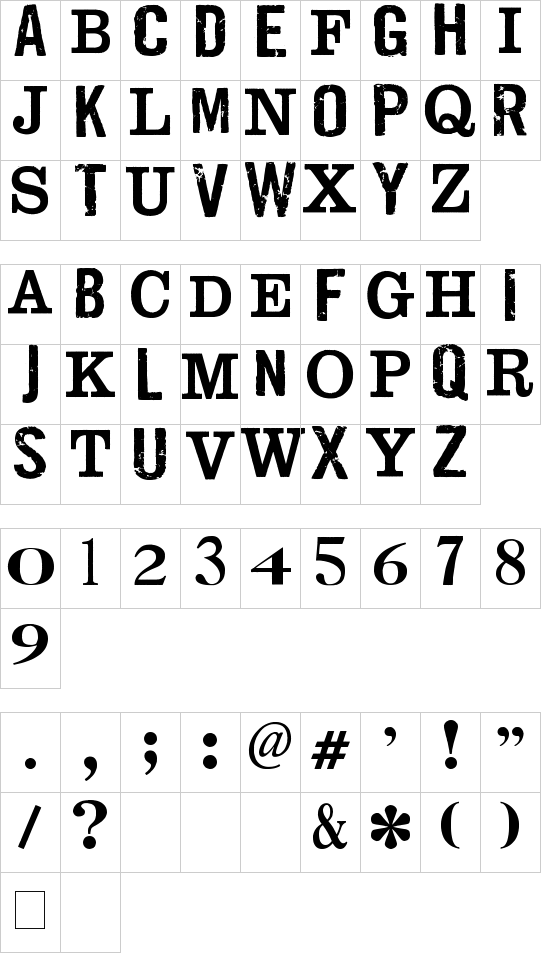
jailbIrD JenNA is a gritty grunge font with rough, distressed letters and a chaotic mix of upper and lower cases. The characters look stamped and smeared, edges break apart unevenly, and the wild swing between letter heights gives everything a raw, unstable energy that refuses to sit straight.
That damaged texture works for punk flyers, band posters, edgy T-shirt prints, and rebellious social media graphics that thrive on imperfection. jailbIrD JenNA is free to download as a TrueType file, and the preview lets you type your own text to see how the messy case mix and broken edges look in your headline before you commit.